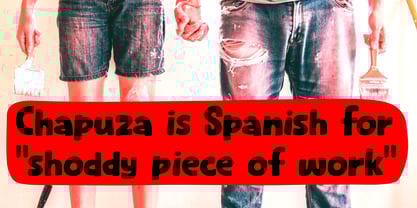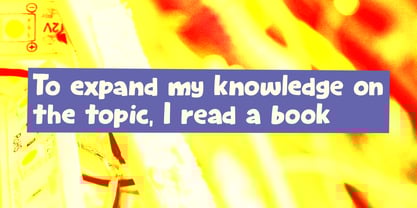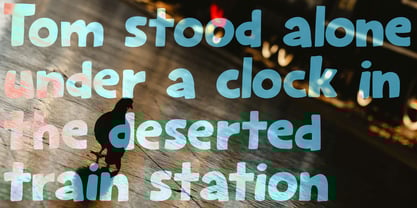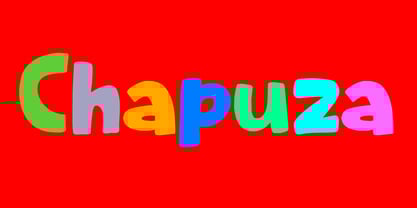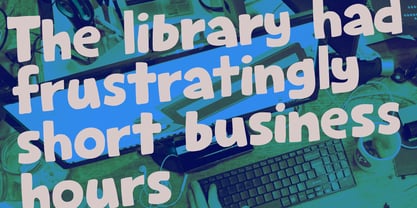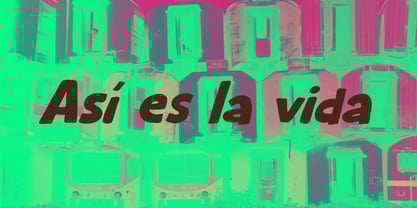
The Chapuza Font Family was designed by David Kerkhoff and published by Kitchen Table Type Foundry. Chapuza contains 2 styles and family package options.
Chapuza is Spanish for ‘shoddy piece of work’. I don’t consider my work to be shoddy, but I needed a funny name for this fun font and Chapuza it was!
Chapuza is a cartoon-like font, ideally suited for children’s books, posters or libraries. It comes with extensive language support and an auto-rotating set of contextual alternates.
Chapuza